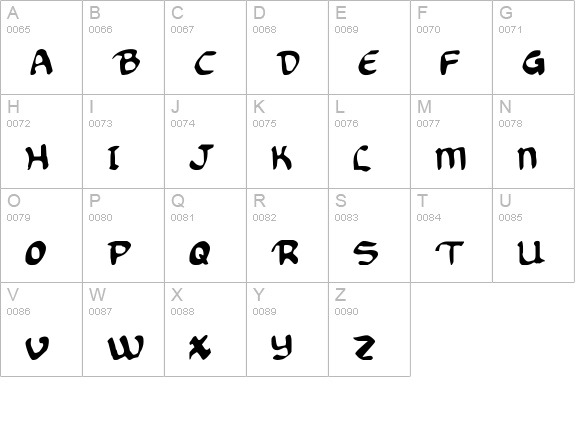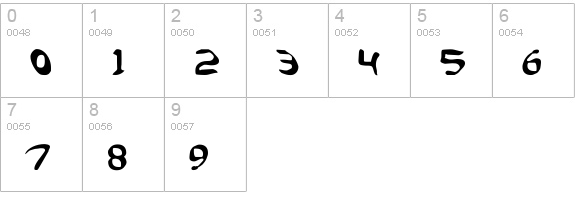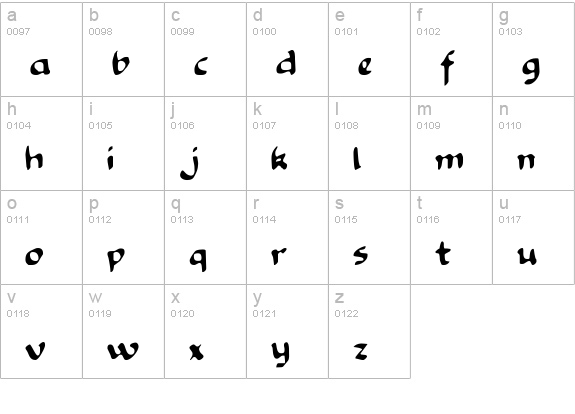
The Knights Templar font is a stunning typeface that captures the essence of medieval elegance and chivalry. Its intricate and ornate letterforms are reminiscent of the ancient scripts used by the legendary Knights Templar, a secretive and noble order that played a significant role in history. With its bold and commanding presence, this font exudes a sense of power and authority, making it perfect for designs that require a touch of grandeur. Whether you're creating a logo for a historical society, designing invitations for a medieval-themed event, or adding a touch of mystique to your personal branding, the Knights Templar font will elevate your designs to new heights. What makes this font even more remarkable is that it is freely available to download at FontsMarket.com. This means that you can effortlessly incorporate the regal allure of the Knights Templar into your projects without any additional cost. It's a rare opportunity to access such a high-quality and meticulously crafted font without having to break the bank. The Knights Templar font is versatile enough to be used in both digital and print media. Its timeless appeal ensures that your designs will stand the test of time, making it a valuable addition to any designer's toolkit. The attention to detail in each letterform is evident, showcasing the dedication and skill of the font's creators. Download the Knights Templar font today from FontsMarket.com and unleash the power of medieval mystique in your designs. Let this font transport you to a bygone era of bravery and honor, where knights roamed the land and legends were born. Embrace the heritage and beauty of the Knights Templar font and let your creativity soar.